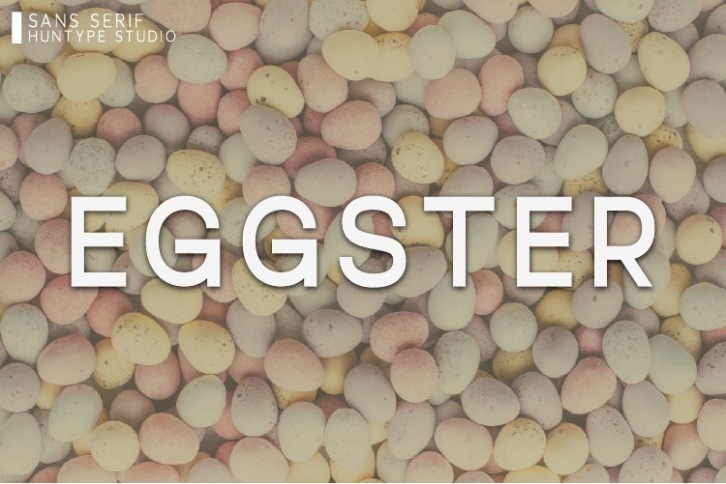
Eggster is a gorgeous font that was realeased on March 17, 2022. The font can be used in many style contexts and design environments. Perfect for invitations, magazines, websites, logos, and more! It was designed by Huntypestudio and the file size is 6.40 MB. Thanks for checking out this font!